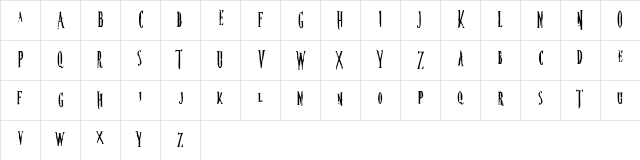
Nightmare 5 Regular Free Font
Nightmare 5 Regular
Design Context for Nightmare 5
Nightmare 5 is a composed and adaptable typeface that performs quietly and consistently across a wide range of design contexts.